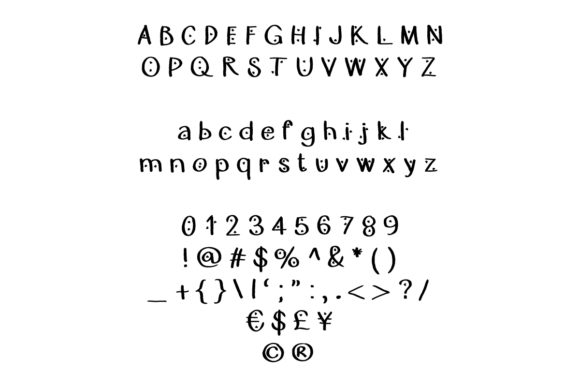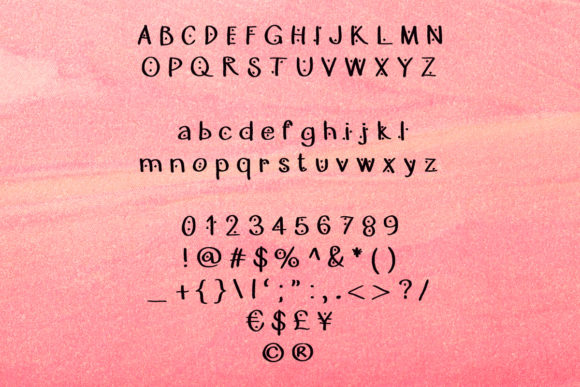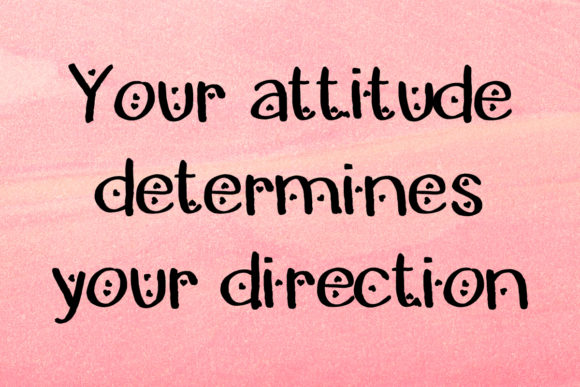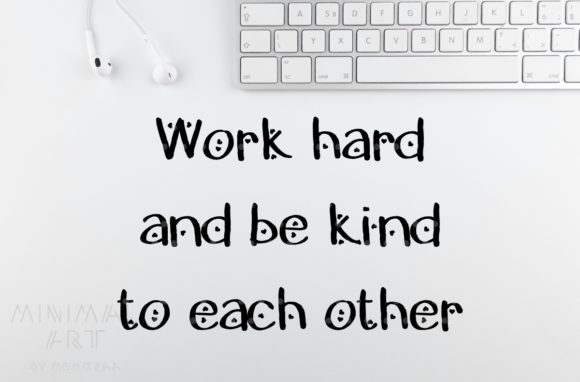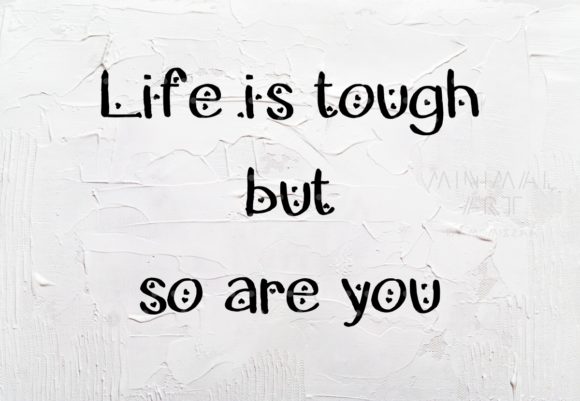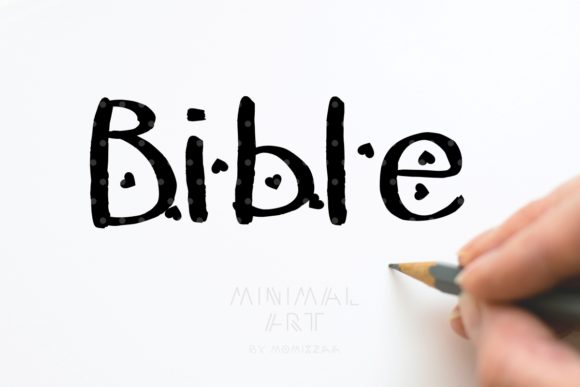
Bible Font: The Cute and Simple Handwritten Font for Your Creative Projects
Are you a designer, crafter, or DIY enthusiast looking for a font that can add a touch of warmth and personality to your creative projects? Look no further than the Bible font! This adorable handwritten font is perfect for anyone who wants to create a down-to-earth, readable, and versatile look that will make their designs stand out.
The Charm of Bible Font
Bible font is a cute and simple handwritten font that exudes a casual charm that is hard to resist. Its gentle, cursive strokes and rounded edges give it a friendly and approachable feel that makes it perfect for a wide range of creative projects. Whether you’re designing a logo, creating a social media graphic, or crafting a handmade card, Bible font is sure to add a touch of warmth and personality to your design.
What Makes Bible Font So Versatile?
One of the things that makes Bible font so versatile is its readability. The font is designed to be easy to read, even at small sizes, making it perfect for body text, captions, and other applications where legibility is key. At the same time, the font’s unique charm and character make it stand out from more traditional fonts, adding a touch of personality to your designs.
Another factor that contributes to Bible font’s versatility is its flexibility. The font can be used in a wide range of contexts, from formal to informal, and can be paired with a variety of other fonts and design elements to create a unique look. Whether you’re designing a wedding invitation, a children’s book, or a social media graphic, Bible font is sure to be a great choice.
How to Use Bible Font in Your Creative Projects
So, how can you use Bible font in your creative projects? Here are a few ideas to get you started:
- Handmade cards and invitations: Bible font is perfect for creating handmade cards and invitations that have a personal touch. Use it to add a message or quote to your design, or use it as the primary font for your card or invitation.
- Social media graphics: Bible font is also great for creating social media graphics, such as quotes, inspirational messages, or promotional graphics. Its casual charm and readability make it perfect for engaging with your audience on social media.
- Logo design: If you’re looking for a font for your logo, Bible font is a great choice. Its unique charm and character make it stand out from more traditional fonts, and its readability ensures that your logo will be easy to recognize.
- Children’s books and educational materials: Bible font is also a great choice for children’s books and educational materials. Its friendly and approachable feel makes it perfect for creating materials that are engaging and fun for kids.
Tips for Pairing Bible Font with Other Design Elements
When pairing Bible font with other design elements, there are a few things to keep in mind. Here are a few tips to help you create a beautiful and cohesive design:
- Use a simple background: Bible font works best on a simple background, such as a solid color or a subtle texture. Avoid using busy or patterned backgrounds, as they can distract from the font.
- Pair with complementary fonts: Bible font pairs well with a variety of other fonts, including serif and sans-serif fonts. Experiment with different font combinations to find the one that works best for your design.
- Add simple graphics: Simple graphics, such as icons or illustrations, can add a touch of personality to your design. Just be sure to keep them simple and understated, so they don’t overwhelm the font.
| Author | Momixzaa |
In conclusion, Bible font is a cute and simple handwritten font that is perfect for designers, crafters, and DIY enthusiasts who want to add a touch of warmth and personality to their creative projects. Its casual charm, readability, and versatility make it a great choice for a wide range of applications, from handmade cards and invitations to social media graphics and logo design. With its unique character and flexibility, Bible font is sure to turn any creative idea into a true piece of art!